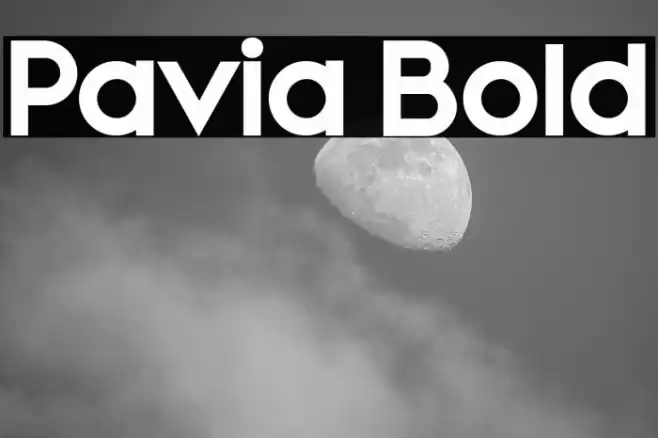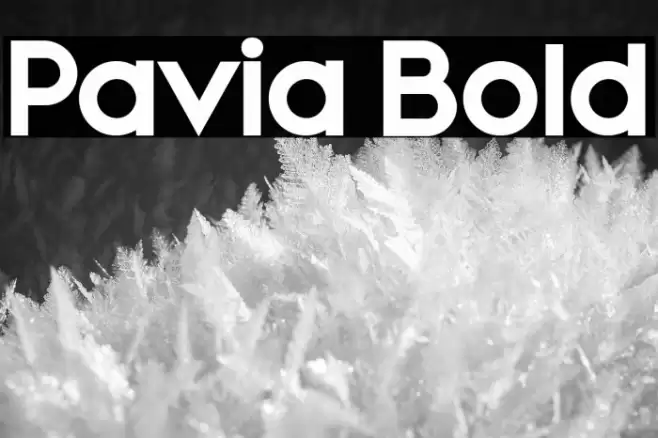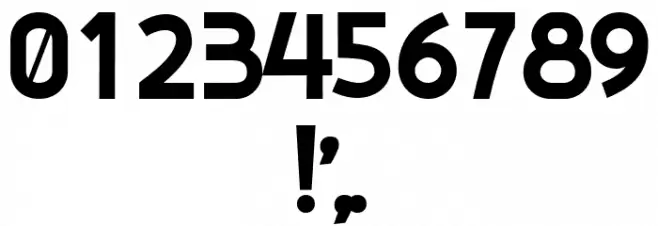
Pavia Bold Font
Pavia Bold Description
This font features a bold and modern sans-serif style with clean lines and a geometric structure. The characters are well-balanced, offering a uniform appearance that is both professional and approachable. The uppercase letters are strong and assertive, while the lowercase letters maintain a friendly and inviting feel. The numerals are clear and distinct, making them easy to read. Special characters are designed with the same attention to detail, ensuring consistency across all glyphs. This font is versatile, suitable for a variety of design applications.
A bold, modern sans-serif font with clean lines and geometric structure from Uncategorized fonts.
- Proposed Projects: Ideal for branding, advertising, headlines, and digital media projects.
- Use Case: Headlines, Logos, Branding